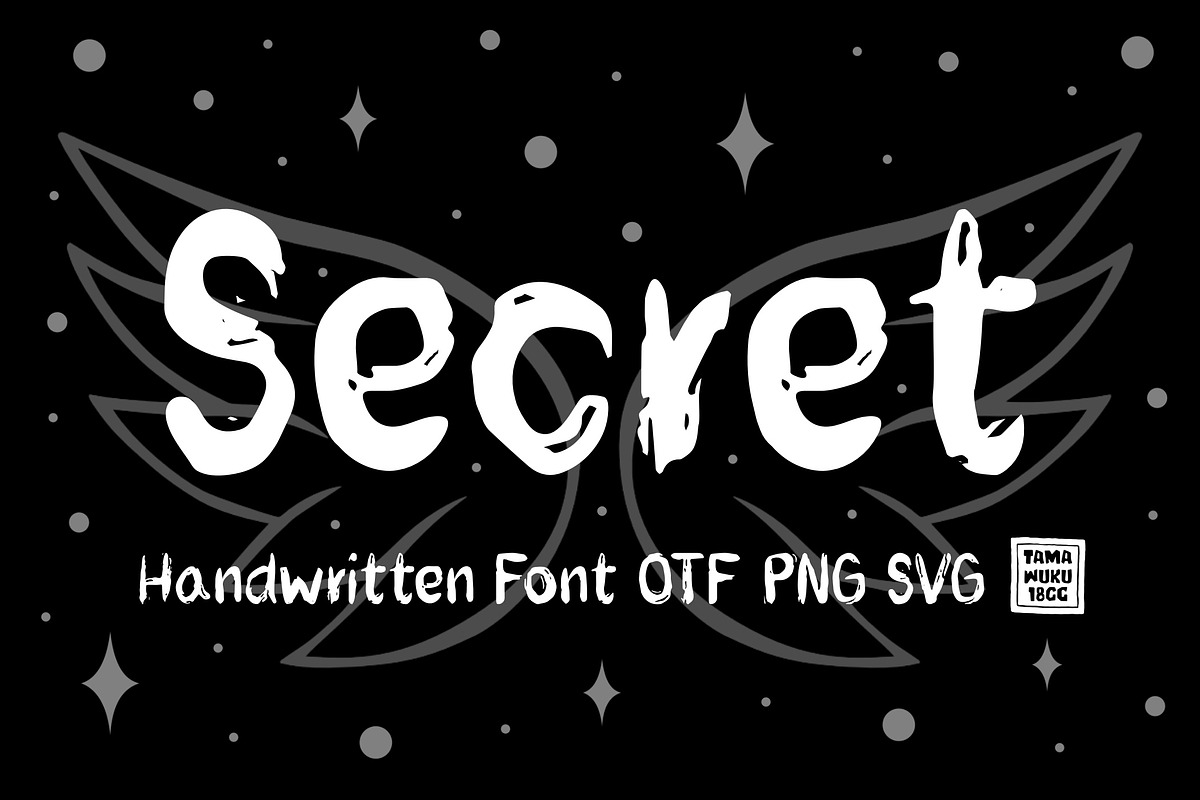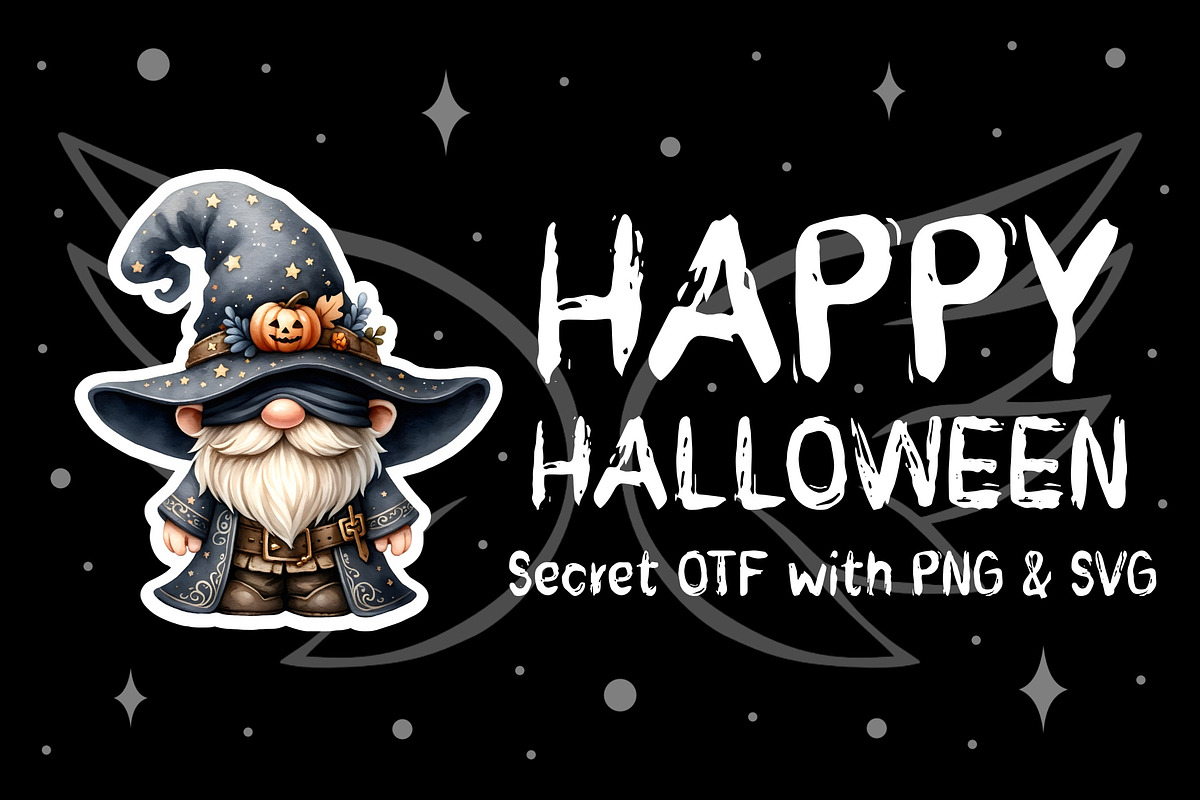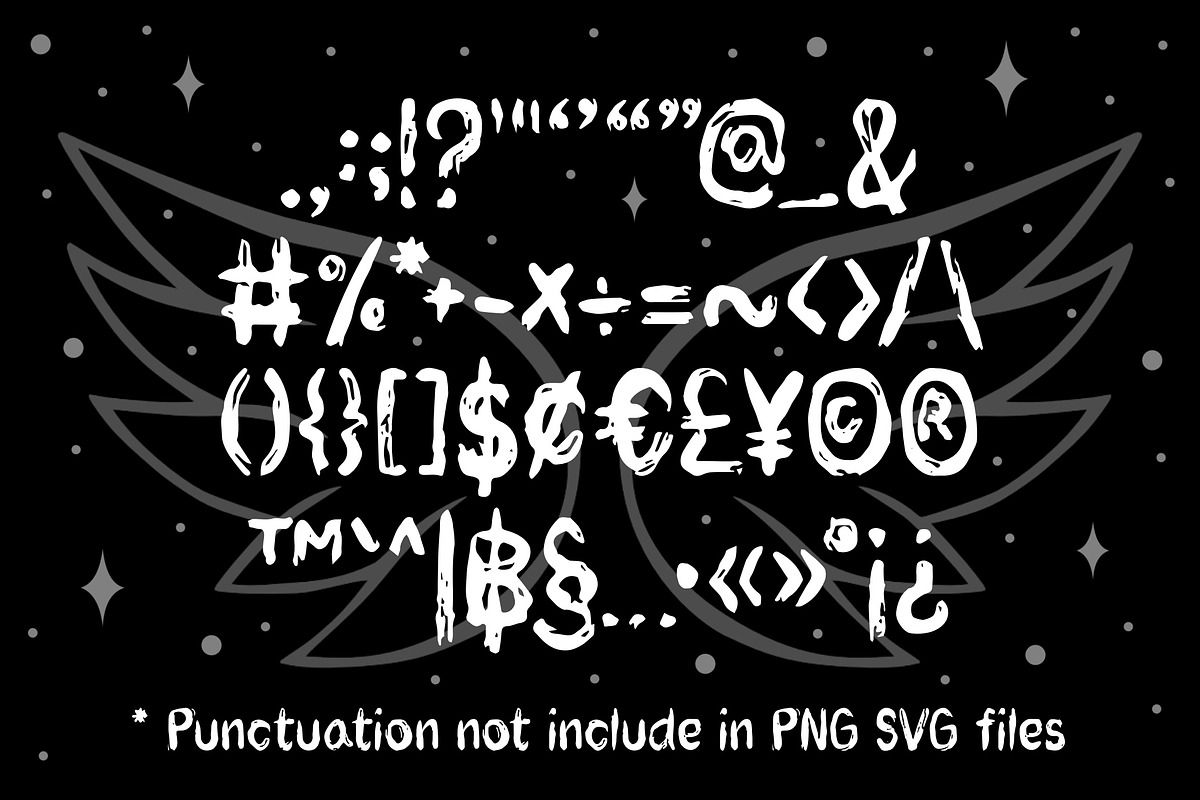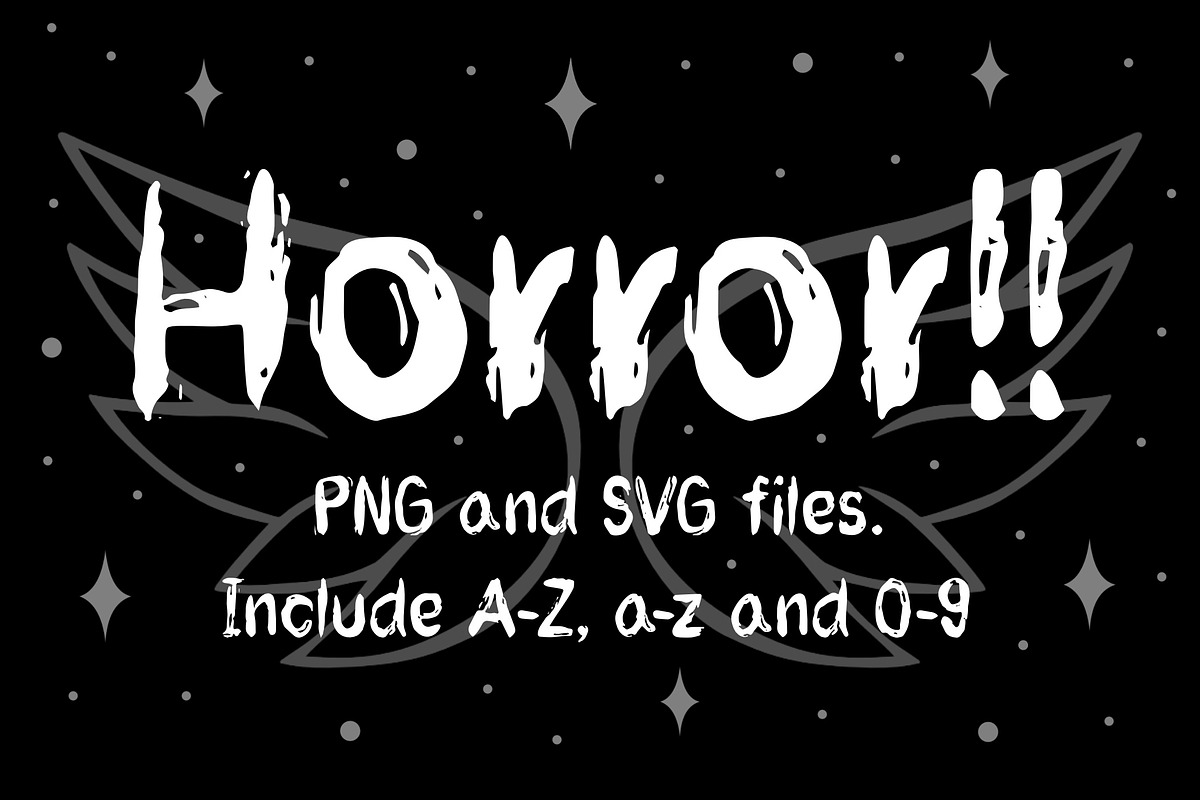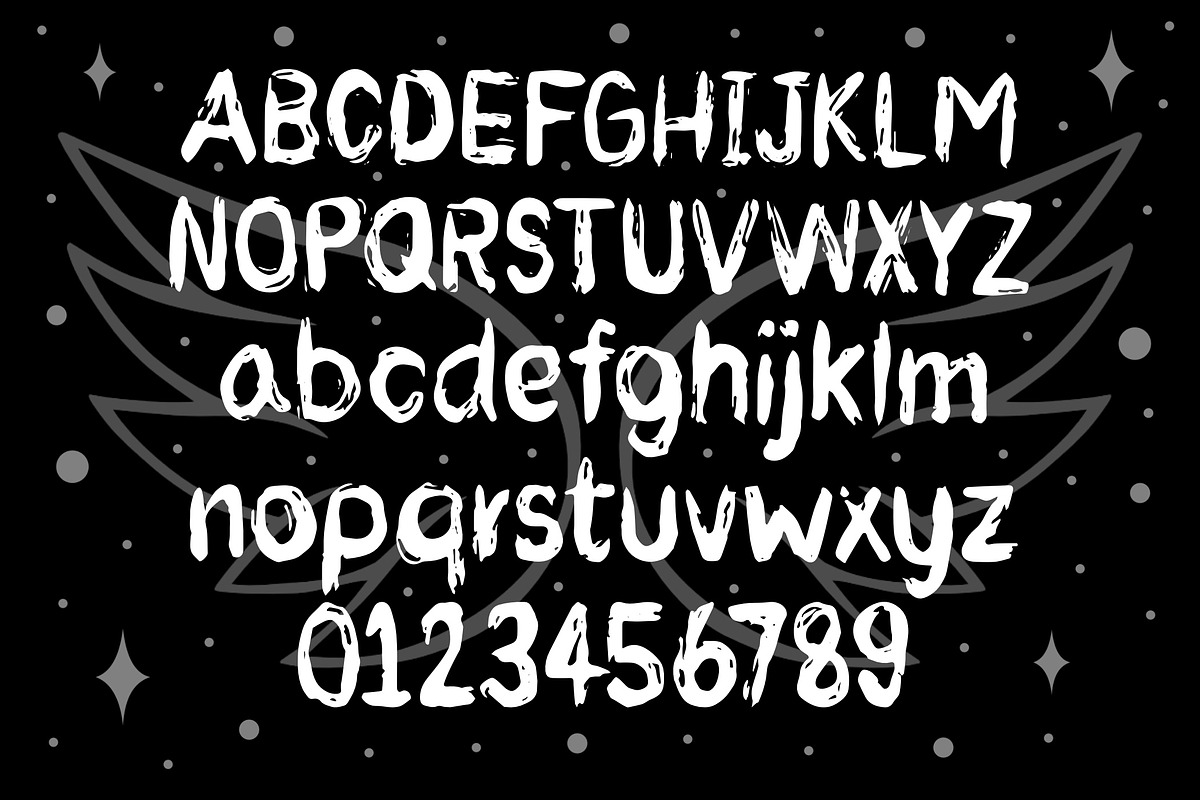
Secret is a messy handwriting font. Busy and a little bit quirky, this font is the perfect fit for all of your note, branding, social media, and crafty DIY projects.